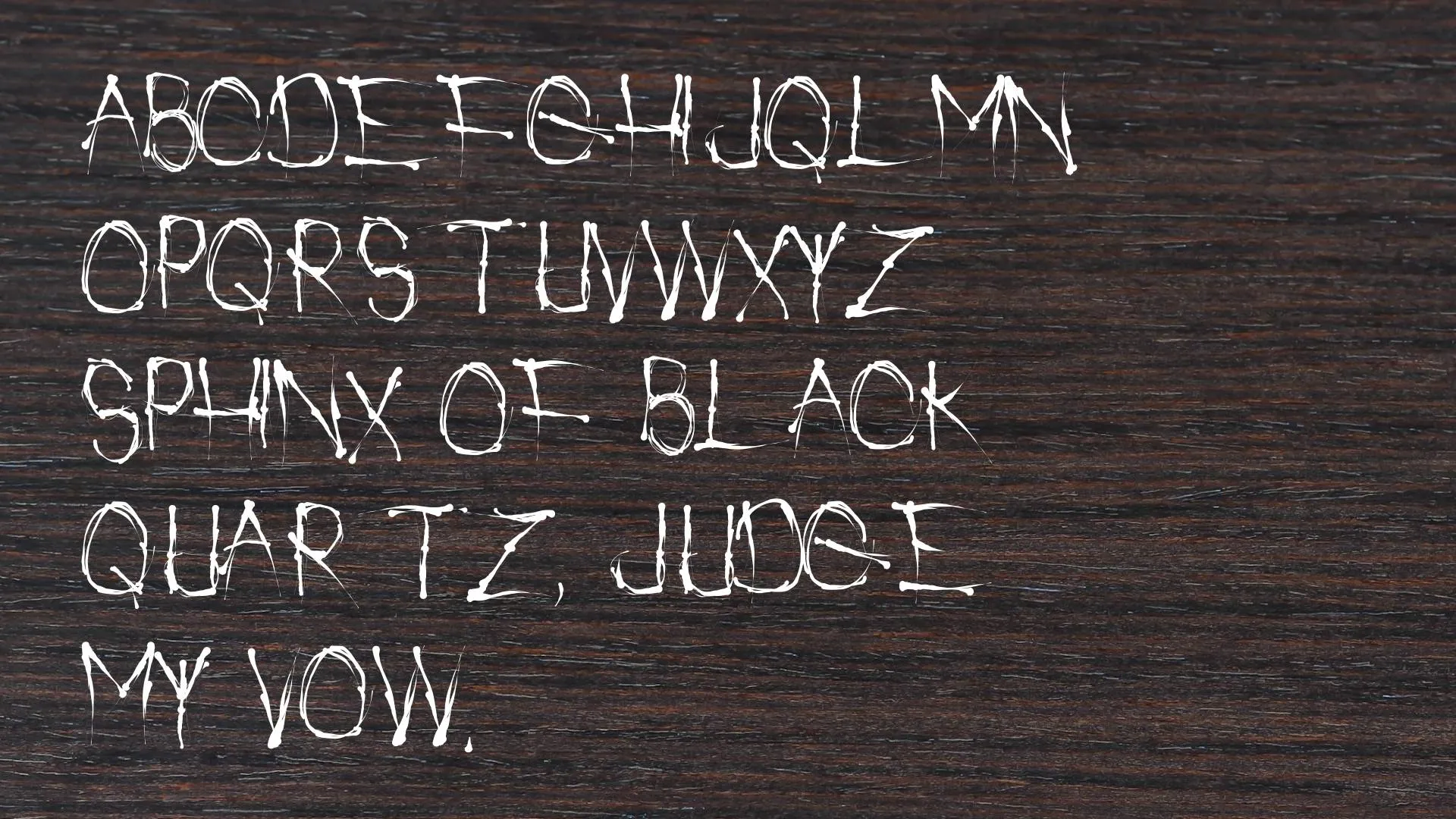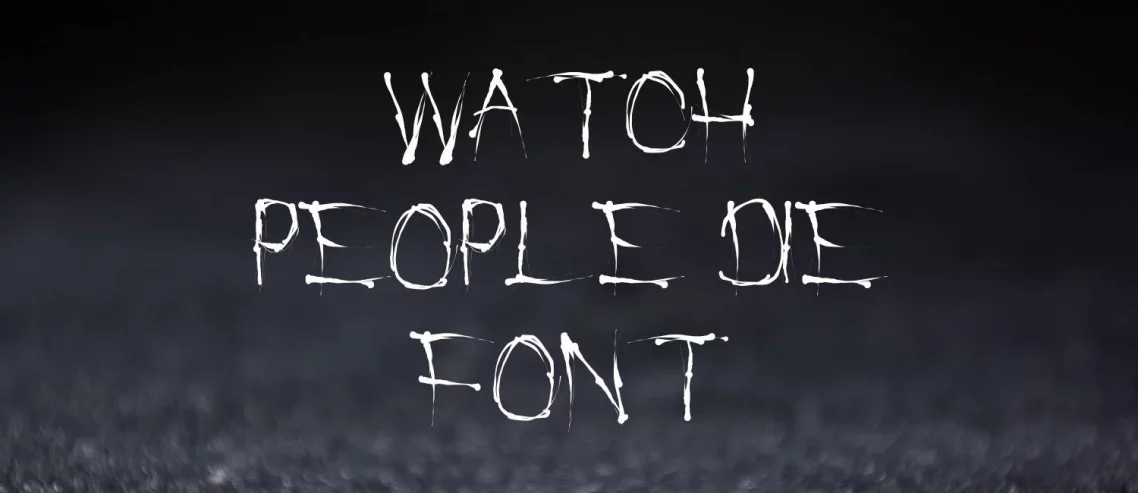
Watch people Die Font is a fancy horror typeface that was designed by a “Font Monge” designer. Watch People Die Font falls under the category of horror fonts. This is known for its text generation function and it is also known as Halloween movie font.
This font has many glyphs, characters, uppercase, punctuation, lowercase, and alternatives. If you are looking for a font that is best for horror movies then pick this font.
Watch People Die Font Info
| Name | Watch People Die Font |
| Designer | Font Monger |